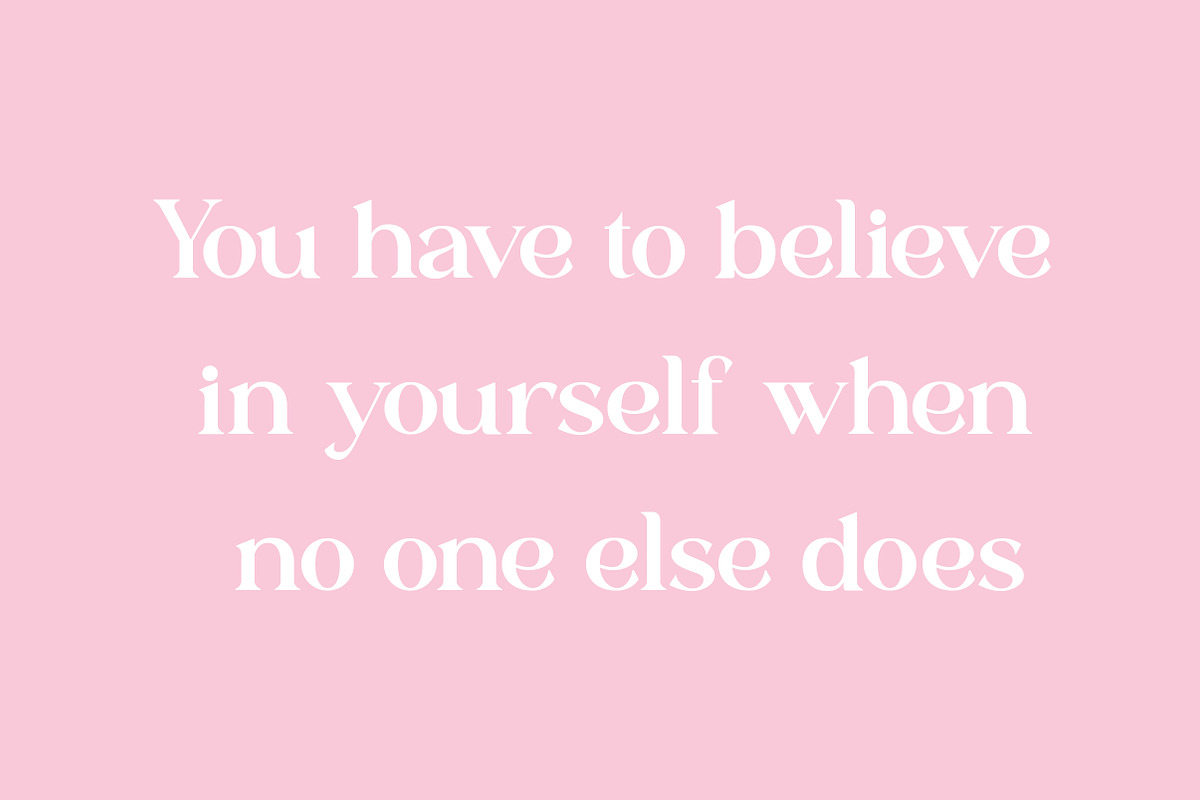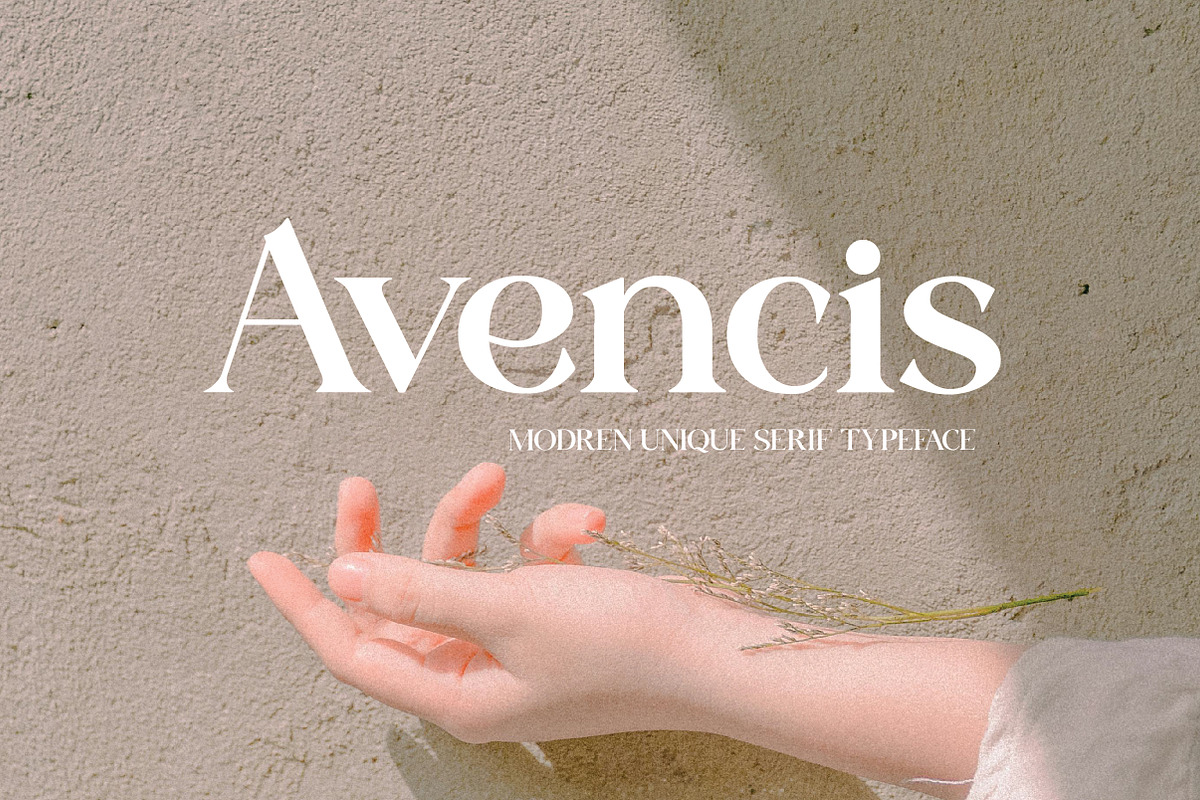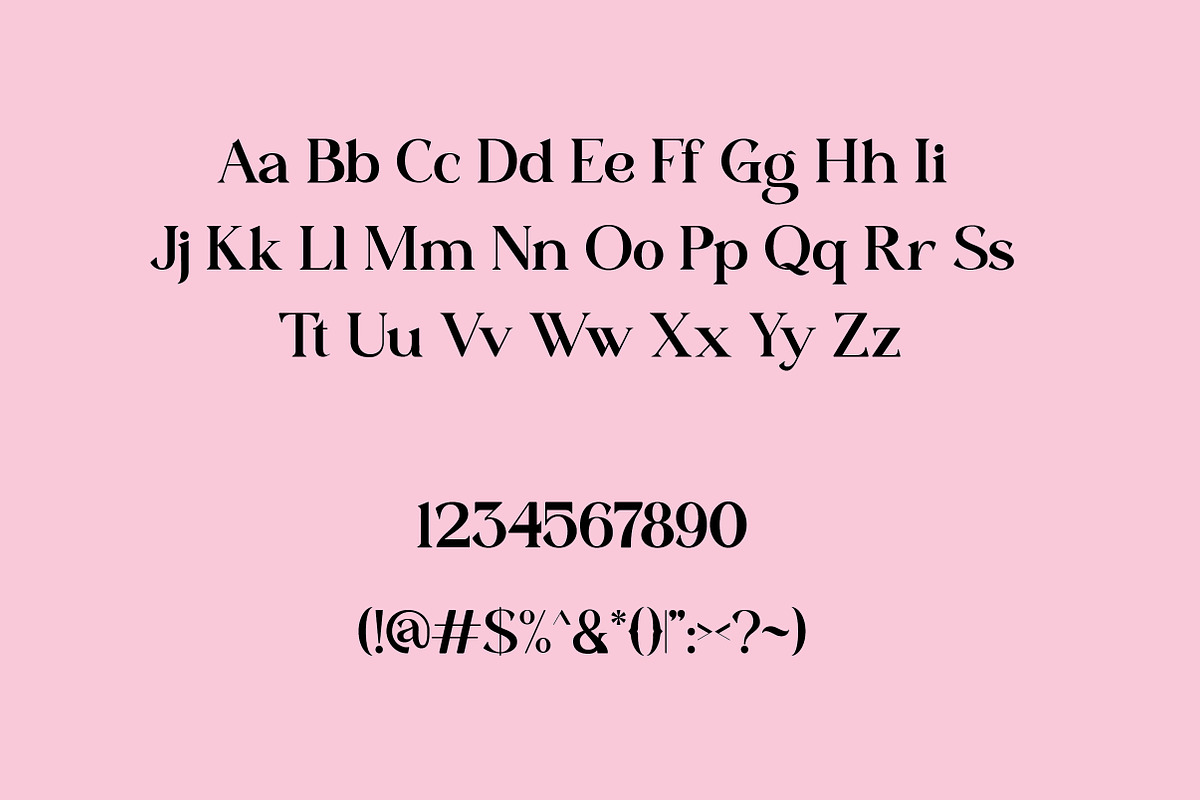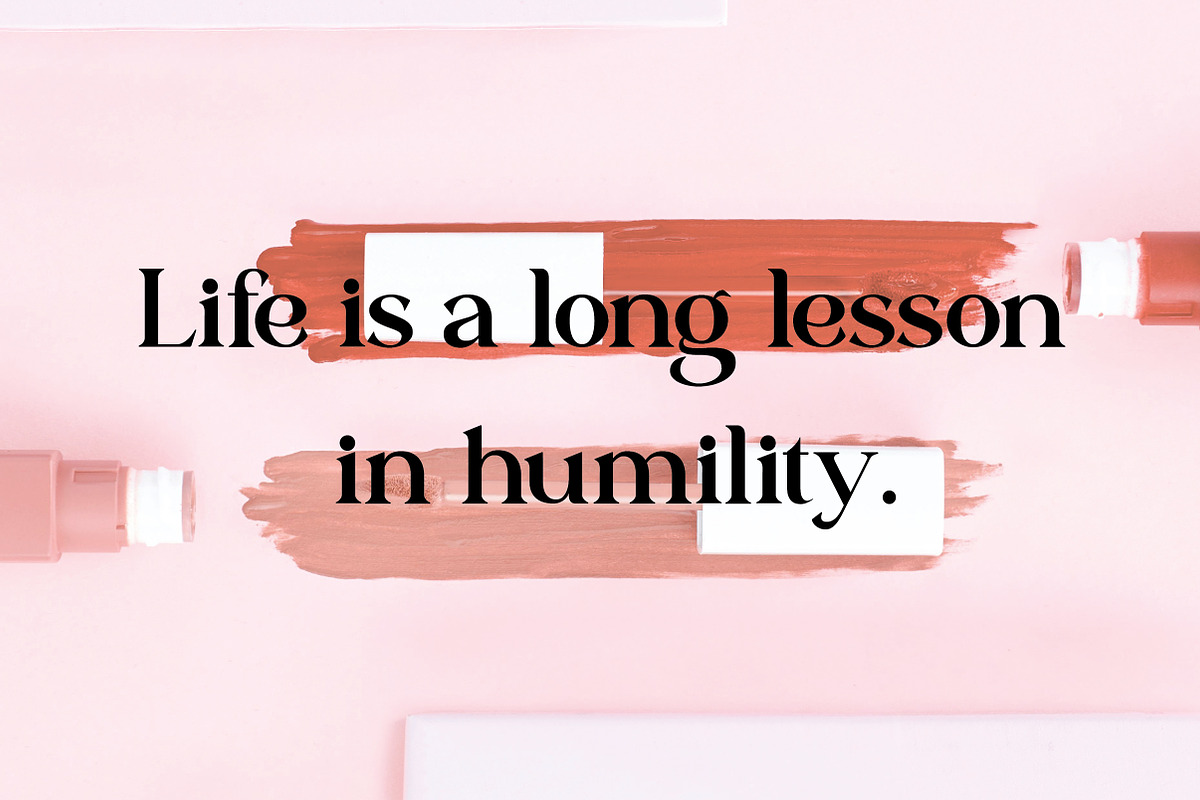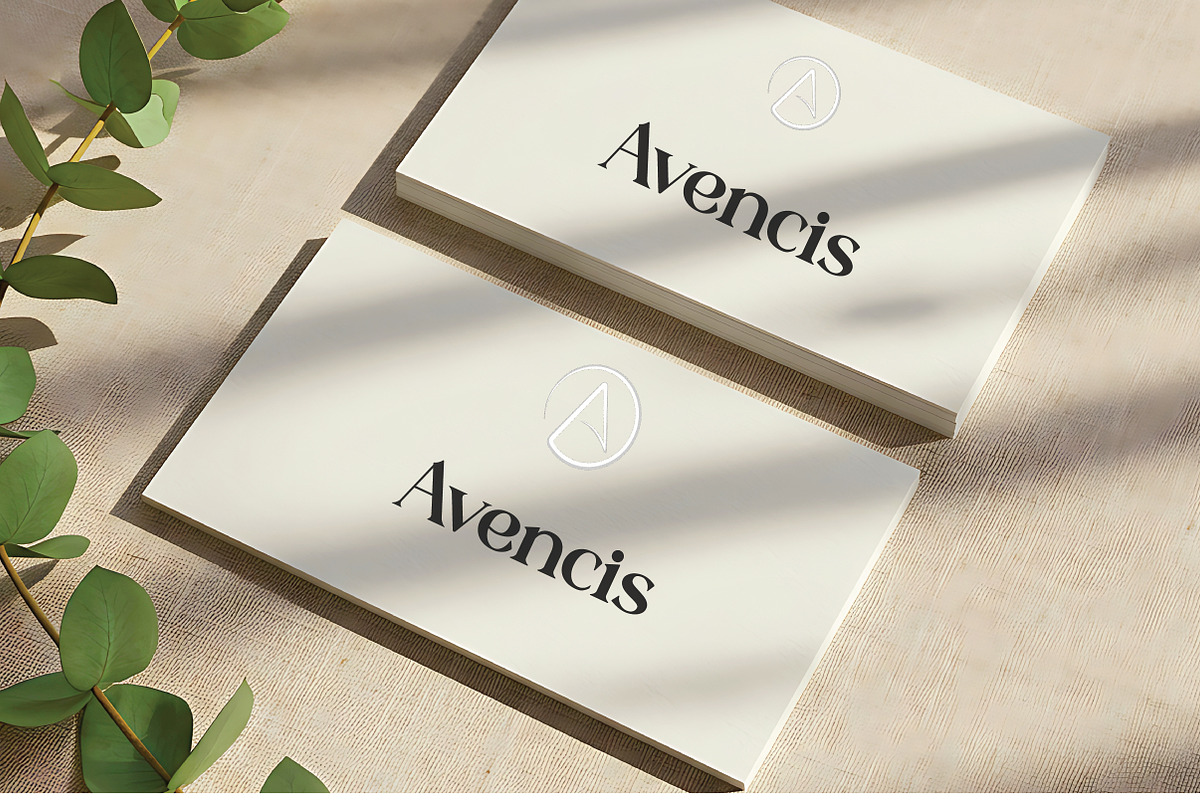
Avencis | Modern Elegant Serif Typef
Avencis is a modern and elegant serif typeface crafted to bring clarity, refinement, and visual balance to your creative work. The Regular style features smooth curves, sharp serifs, and well-balanced proportions—making it ideal for branding, editorial layouts, product packaging, logos, websites, and upscale print materials. With its timeless design and high readability, Avencis performs beautifully in both large headlines and long-form text, maintaining a polished, professional tone throughout.
Avencis is the perfect serif font for designers seeking modern sophistication, classic structure, and versatile elegance across digital and print platforms.